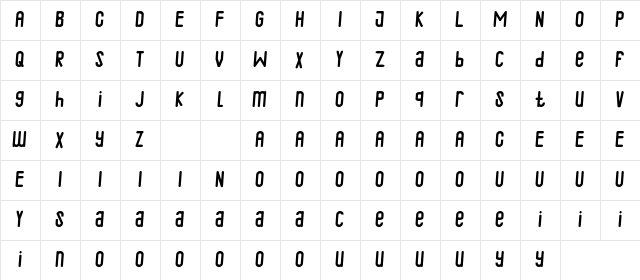
Qalin Demo Italic
| Foundry | Edric Studio |
| Designer | Renata Insan C & Aghnia Nurul Yasmine |
Design Context for Qalin Demo Typeface
Qalin Demo takes a measured approach to typography — its balanced proportions and neutral character make it a reliable workhorse for both digital and print work. The slanted form adds forward momentum and visual energy.